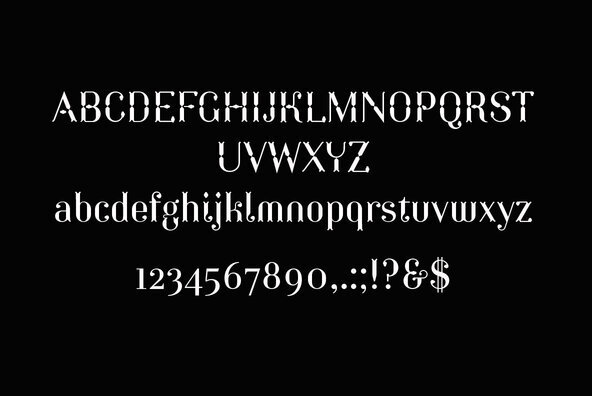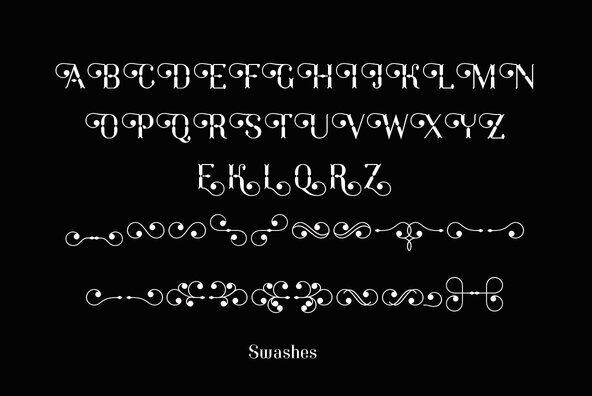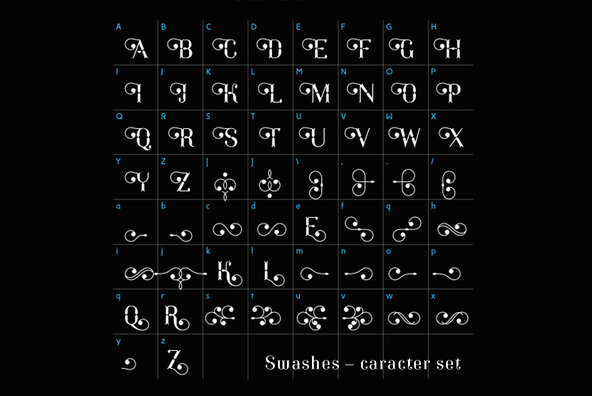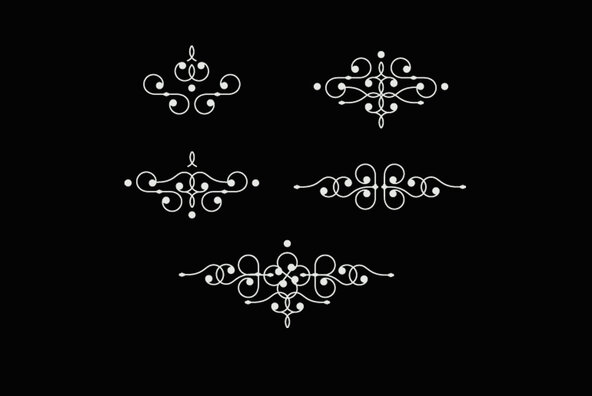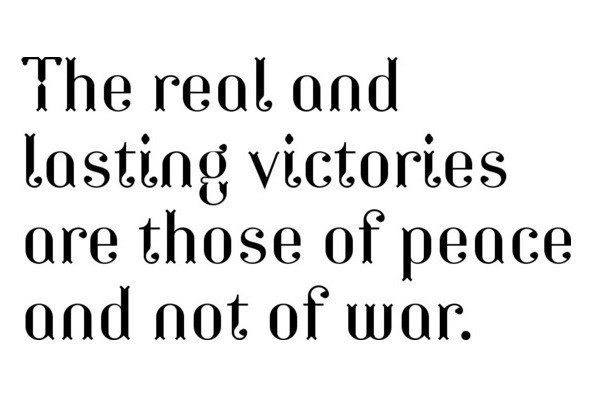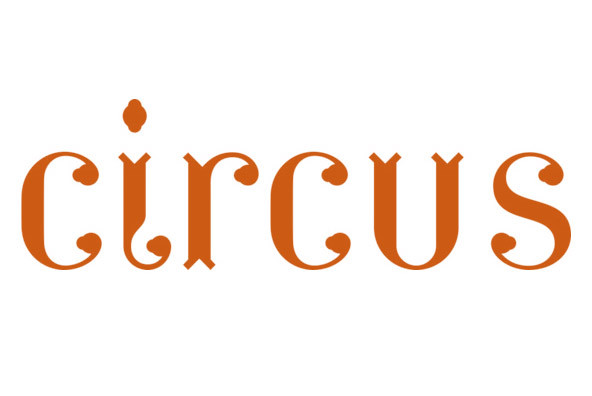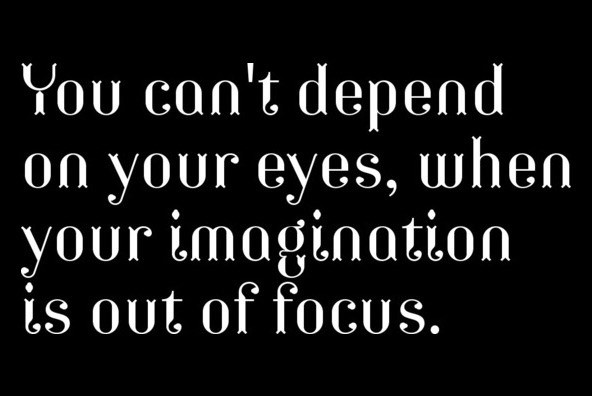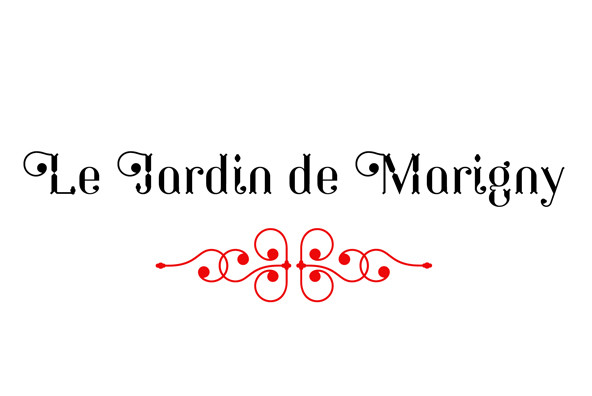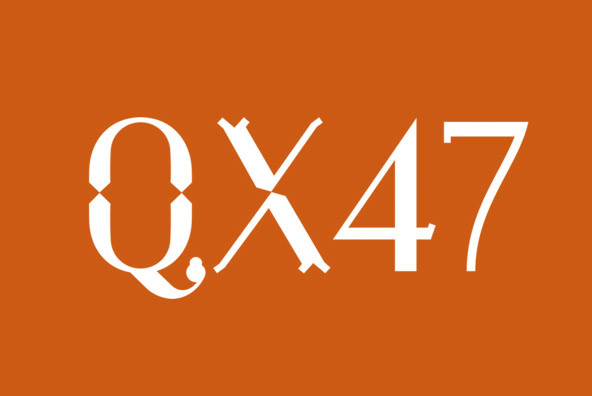
Umbria is a decorative display typeface - ideal for use in titles, logos, magazines, posters, as well as short text paragraphs. Umbria consists of two styles - Regular and Swash.